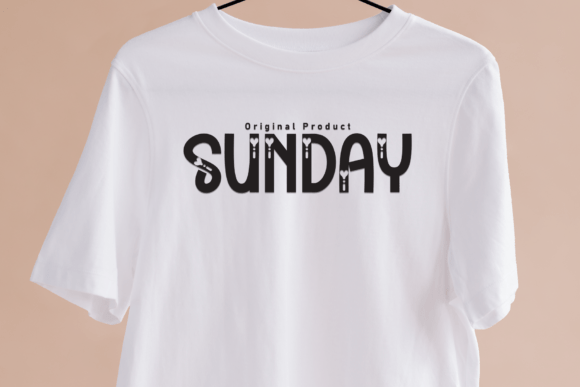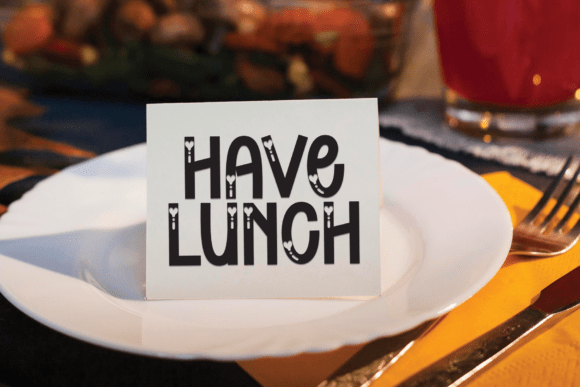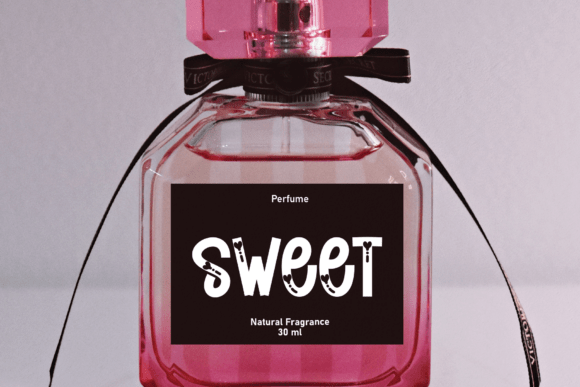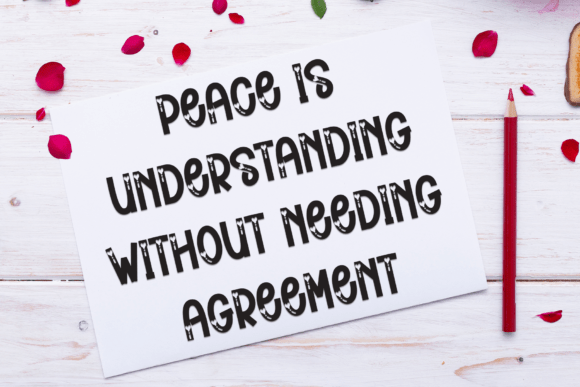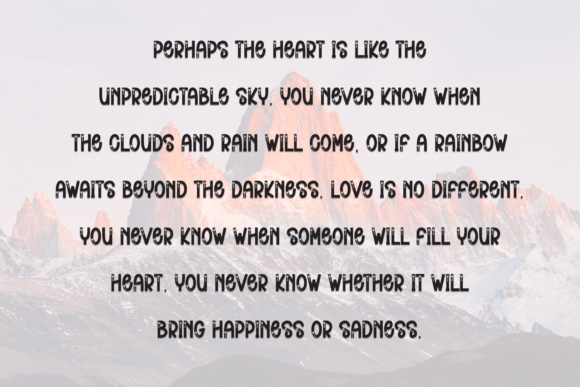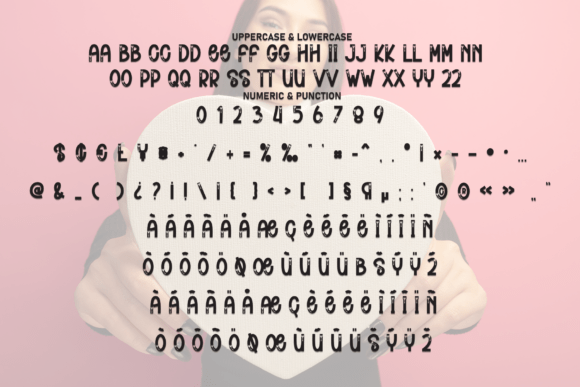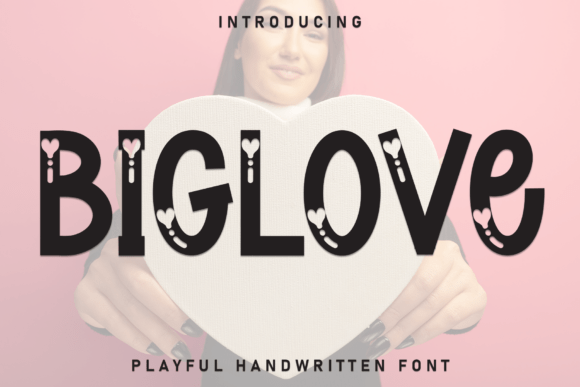
Introducing Biglove Font: The Embodiment of Fiery Ardour and Whimsical Charm
In the realm of typography, there exist fonts that merely convey words, and then there are those that transcend their purpose, evoking emotions and crafting experiences. Biglove Font is one such artistic marvel, a lively display font that pulsates with an irresistible charm, making it the perfect companion for designers and crafters seeking to infuse their projects with a dash of romance, joy, and whimsy.
The Essence of Biglove Font
Biglove Font is not just a typeface; it’s an experience. It’s a masterfully crafted font that embodies the fiery ardour of passion and the imaginative charm of a fairy tale. Its letters are designed to dance on the page, imbuing every word with a sense of movement and life. This font is the epitome of creativity, making it an ideal choice for projects that demand a touch of elegance and a pinch of playfulness.
A Perfect Partner for Romantic and Joyous Projects
Whether you’re designing tender-hearted wedding invitations, romantic scripts, or any project that yearns for a sprinkle of pure joy, Biglove Font is your perfect partner. Its captivating allure creates an ambiance of warmth and brilliance, resonating with the essence of happiness and profound sentiments. With Biglove Font, each word reverberates with its distinctive bewitching character, making your designs not just visually stunning but also emotionally resonant.
Beyond Typography: A Vehicle for Emotions
Biglove Font is more than just a typeface; it’s a vessel for emotions. It allows designers and crafters to convey a range of feelings, from the depth of love and affection to the simplicity of joy and playfulness. Each letterform is imbued with a sense of personality, making it possible to craft messages that are not just read but felt. Whether you’re aiming to create a sense of intimacy, excitement, or wonder, Biglove Font provides the perfect medium to express these sentiments with elegance and flair.
Unleashing Creativity with Biglove Font
The versatility of Biglove Font is one of its most compelling attributes. It’s a font that can effortlessly transition from the romantic and whimsical to the bold and expressive, making it suitable for a wide array of design projects. Here are a few ways designers and crafters can unleash their creativity with Biglove Font:
• Wedding and Event Invitations: Create stunning wedding invitations, save-the-date cards, and event posters that exude romance and sophistication.
• Romantic Scripts: Write love letters, romantic quotes, and poetry that capture the essence of your feelings with a touch of whimsy and charm.
• Branding and Packaging: Use Biglove Font to add a personal touch to branding and packaging designs, making them stand out with a unique character.
• Digital and Print Media: Enhance your digital and print media projects, such as magazines, brochures, and social media graphics, with a font that adds warmth and personality.
Why Choose Biglove Font?
In a world where design plays a crucial role in communication, Biglove Font stands out as a beacon of creativity and emotional depth. Here are a few reasons why designers and crafters should consider Biglove Font for their next project:
• Unique Character: Biglove Font offers a distinctive style that can elevate your designs and make them instantly recognizable.
• Emotional Connection: It helps create an emotional connection with your audience, making your designs more impactful and memorable.
• Versatility: The font’s versatility means it can be used across a variety of projects, from romantic and whimsical to bold and expressive.
Font Name Biglove Font
Biglove Font is a captivatingly crafted typeface that brings a fiery ardour and imaginative charm to any design project. Its ability to evoke emotions and create a sense of warmth and brilliance makes it an invaluable tool for designers and crafters. Whether you’re looking to add a touch of romance to wedding invitations, infuse joy into your designs, or simply explore new creative avenues, Biglove Font is your perfect companion. Experience the magic of Biglove Font and let its enchanting character breathe life into your designs.